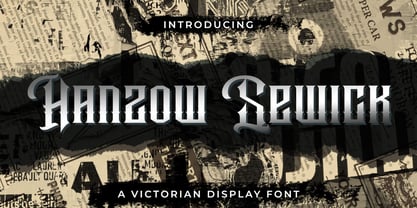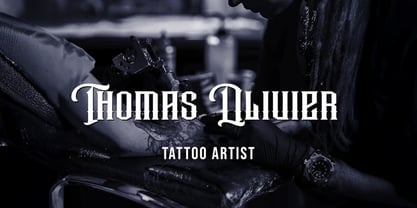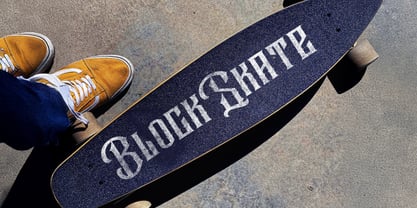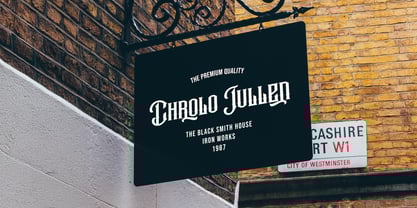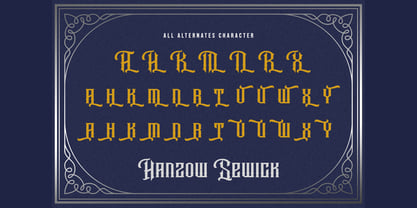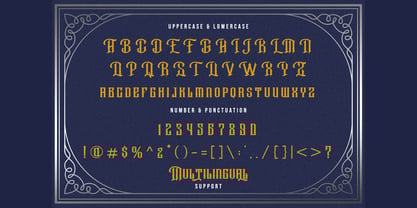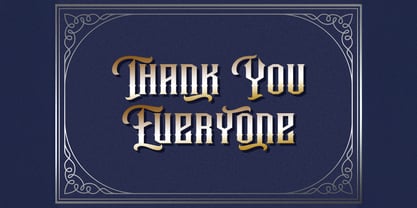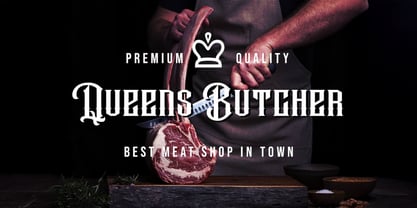
Hanzow Sewick
by Stringlabs Creative Studio
The Hanzow Sewick Font Family was designed by Virgiawan Listanto and published by Stringlabs Creative Studio. Hanzow Sewick contains 1 styles. More about this family
Hanzow Sewick is a Victorian display font that embodies the grandeur and intricate style of 19th-century typography. Featuring ornate curves, bold strokes, and refined vintage detailing, this font is perfect for creating striking posters, labels, book titles, invitations, and branding with a classic flair. Hanzow Sewick adds elegance, nostalgia, and artistic sophistication to any project, making it a timeless choice for designers seeking vintage charm.
Designers: Virgiawan Listanto
Current Foundry: Stringlabs Creative Studio